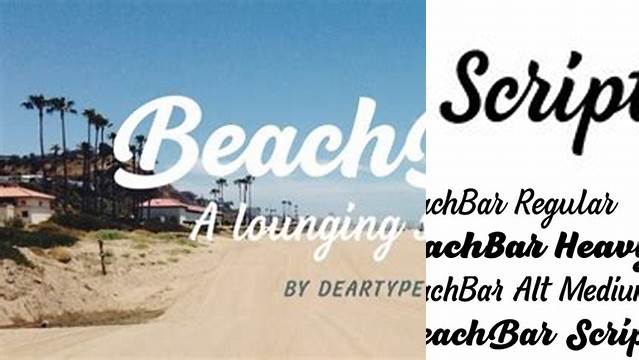
Beachbar Script Font: An Introduction
Alright, guys, let's kick things off with a proper introduction to the Beachbar Script Font. This font is a beautifully crafted script typeface that exudes a sense of sophistication and creativity. It's designed with flowing strokes and elegant curves, making it ideal for projects that require a touch of class and flair. The Beachbar Script Font is known for its versatility, lending itself well to a wide range of design applications. You'll find it being used in everything from branding and advertising to editorial design and personalized stationery. Its unique style is a blend of modern aesthetics and classic calligraphy, providing a balanced look that’s both contemporary and timeless. When you see the Beachbar Script Font, you immediately get a feel of a handwritten script, which adds a personal and artistic touch to your design. The font is designed to be easily readable, even at smaller sizes, which is essential for various design applications. Think about the possibilities: you can use this font for creating logos, designing websites, crafting social media posts, making wedding invitations, or even personalizing gifts! The versatility of the Beachbar Script Font is one of the reasons why it's so beloved by designers. The font’s designers have paid close attention to the details, ensuring the strokes connect seamlessly to give the impression of a continuous, natural script. This attention to detail ensures that every character flows beautifully, resulting in a visually pleasing design. It is a must-have font for any designer looking to add a touch of elegance and charm to their projects, offering a seamless blend of creativity and readability. You can customize the font's appearance to fit the specific needs of your project, creating a unique and stylish look that perfectly complements your design goals.
Beachbar Script Font Characteristics
Let's dive into some of the nitty-gritty details. The Beachbar Script Font isn't just pretty; it’s also got some awesome features. The Beachbar Script Font comes with a range of distinctive characteristics. The design showcases a beautifully flowing script that mimics the look of elegant handwriting. You’ll notice the connection between the letters, which are designed to flow seamlessly, creating a harmonious feel throughout your text. This font typically includes several alternative characters and ligatures. Alternative characters are different versions of the same letter, which allows you to personalize the look and feel of your text even further. Ligatures are special characters where two or three letters are combined to create a unique symbol, such as “ff” or “fl.” This is a great way to add elegance and consistency to your design. The Beachbar Script Font has a moderate to high contrast, meaning that the thickness of the strokes varies. Thinner strokes are used in the font to create a dynamic visual effect. This contrast adds depth and visual interest to the font. The x-height is also something to be aware of, which is the height of the lowercase 'x'. This can affect how the font appears on your design. Make sure the font has a suitable x-height for readability. The overall legibility is also very important. The Beachbar Script Font has been designed to be readable, but the more stylized versions can make it harder to read at times. Make sure the font's legibility is suitable for your project's primary purpose. The curves and swirls of the letters give it a stylish and modern feel. Make sure you consider the overall look of the design, as it should meet the design and aesthetics of your project.
Beachbar Script Font: Design Applications
Okay, so you've got this amazing font. Now, what can you actually do with it? The Beachbar Script Font is incredibly versatile and works wonders in various design applications. Think about it: it can completely transform the look and feel of your projects. First off, branding and logo design. If you want to create a logo for a business, the Beachbar Script Font can add sophistication and elegance. It's especially great for businesses that want to convey a sense of creativity. It's a fantastic choice for businesses in the beauty, fashion, and hospitality industries. Next, website headers and titles. Using the Beachbar Script Font on your website can elevate the design. It adds a stylish and attractive feel, especially for creative websites. The font also works wonders on social media graphics and posts. Using the font in your posts will grab attention and make your content stand out. It's especially great for creating inspirational quotes and announcements. Wedding invitations and stationery. The Beachbar Script Font is a popular choice for wedding invitations, adding a personal and romantic touch. Its elegant script style creates a warm, inviting feel, making it ideal for special events. The font is also great for personalizing gifts. Whether you’re designing a card, a sign, or an engraving, the Beachbar Script Font adds a personal touch. It's perfect for creating unique and memorable gifts. Editorial design, such as magazines or brochures, also benefits from the Beachbar Script Font. The font can enhance the overall aesthetic and readability of the publication. You can use the font to set titles, subheadings, or even short paragraphs. In short, the Beachbar Script Font is a powerful tool in your design arsenal, suitable for a wide array of projects. Its ability to effortlessly combine elegance with style makes it a favorite of designers everywhere. So, let your imagination run wild. With the Beachbar Script Font, the design possibilities are endless!